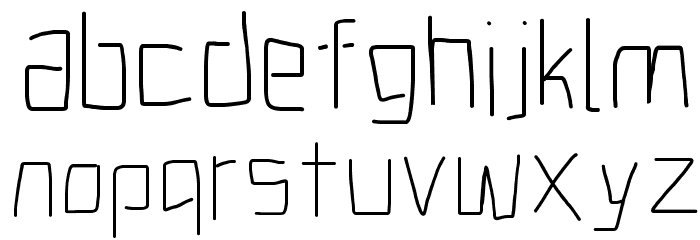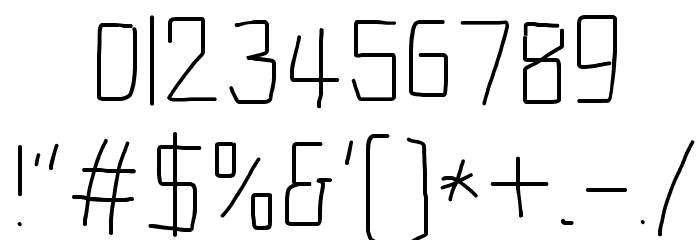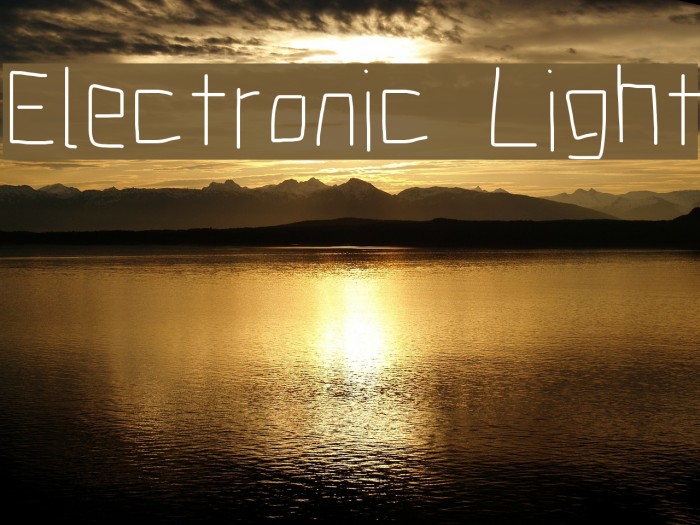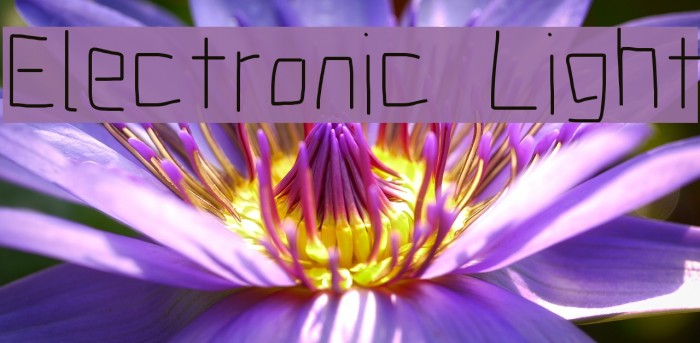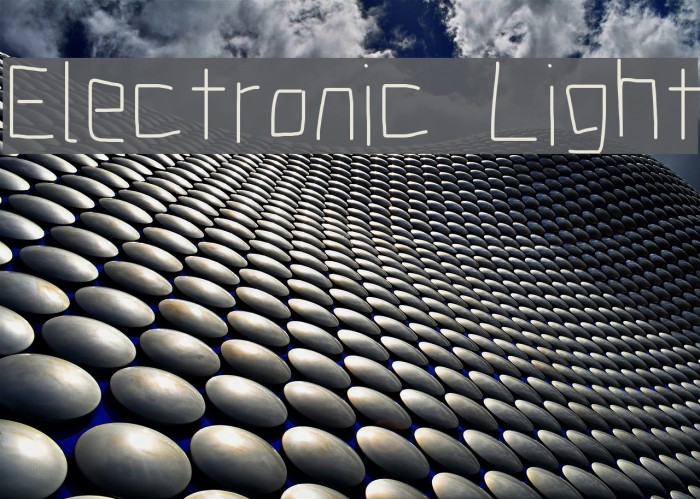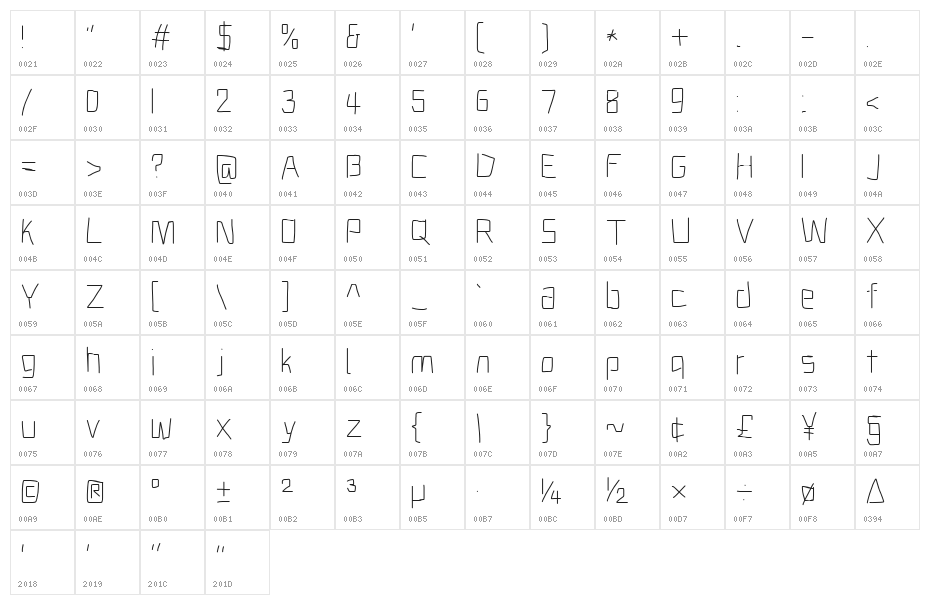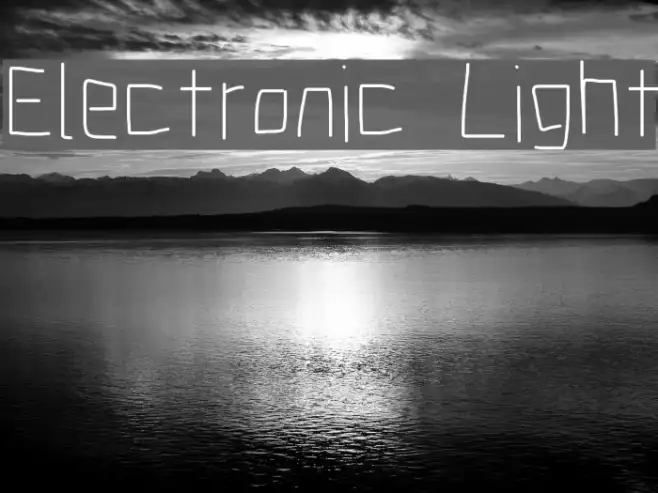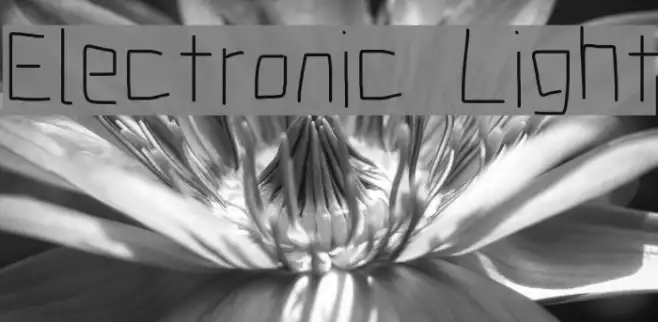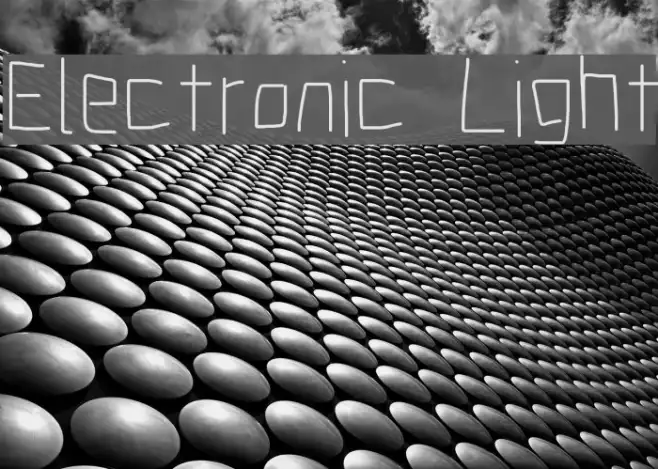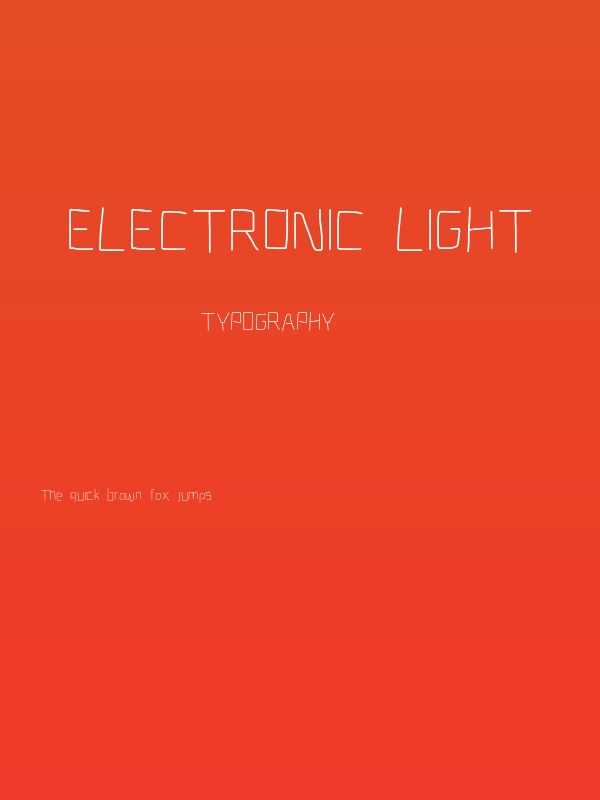
Electronic Light Font
This font features a geometric and minimalist design with a distinctly modern and electronic feel. The characters are composed of straight lines and sharp angles, creating a clean and futuristic appearance. The uppercase letters are uniform in height, while the lowercase letters maintain a consistent baseline, contributing to a cohesive look. The numerals and special characters follow the same design principles, ensuring uniformity across all glyphs. The overall style is reminiscent of digital displays, making it suitable for tech-related projects. The font's simplicity and clarity make it highly legible, even at smaller sizes.
A geometric, minimalist font with a modern, electronic style.
- Proposed Projects: Ideal for tech branding, digital interfaces, futuristic designs, and electronic-themed projects.
- Category: Sans-Serif
- Weight: Light
- Use Case: Headlines, Logos, Digital Interfaces